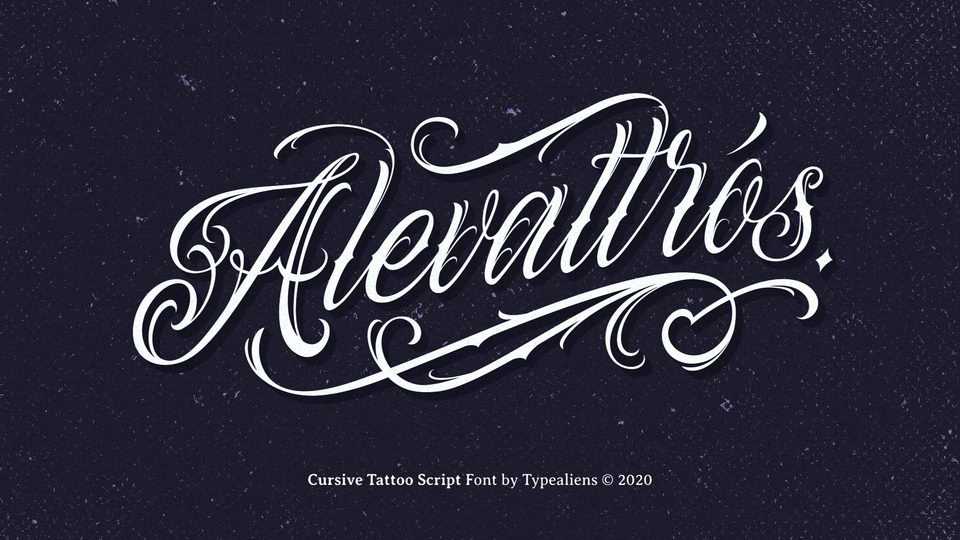
Download Alevattros font, a decorative tattoo style script for your tattoo lettering design. Alevattros is also very suitable if you want to make your tattoo studio logo using this font.
Designer: Typealiens